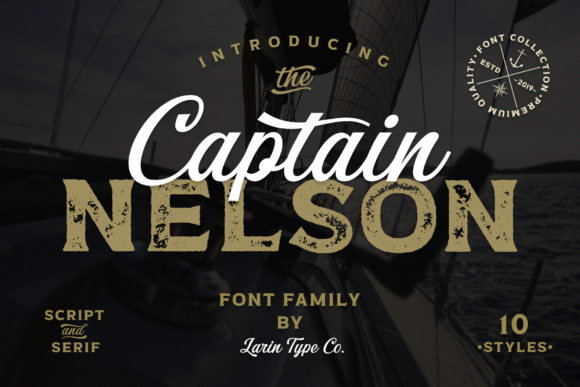
Introducing Captain Nelson Font: The Ultimate Duo for Stunning Design Results
In the world of typography, finding the perfect font combination can make all the difference in creating visually appealing designs. Captain Nelson Font is a game-changing duo that brings together two incredible fonts, designed to perfectly complement each other and elevate your design ideas to new heights. In this article, we’ll dive into the world of Captain Nelson Font, exploring its unique features, and how it can transform your design projects.
The Power of Font Combinations
When it comes to designing a project, selecting the right font can be a daunting task. With countless options available, it’s easy to get lost in the sea of typography. However, a well-chosen font combination can make your design stand out, convey the right message, and leave a lasting impression on your audience. A great font duo can add depth, balance, and visual interest to your design, making it more engaging and effective.
Meet Captain Nelson Font
Captain Nelson Font is a thoughtfully crafted duo that consists of two distinct fonts: a script font and a serif font. This dynamic combination is designed to provide the perfect balance of charisma, charm, and confidence, making it an ideal choice for a wide range of design projects. Whether you’re working on a branding project, creating a website, or designing marketing materials, Captain Nelson Font has got you covered.
The Script Font: Charisma and Charm
The script font in the Captain Nelson duo is a beautiful, elegant, and highly legible typeface. Its flowing curves and dynamic strokes add a touch of sophistication and charm to any design. This font is perfect for adding a personal touch to your project, making it ideal for use in:
- Logotypes and branding
- Headings and titles
- Invitations and event materials
- Packaging and labels
The Serif Font: Confidence and Authority
The serif font in the Captain Nelson duo is a sturdy, dependable, and highly readable typeface. Its classic design and confident strokes add a layer of authority and trustworthiness to your design. This font is perfect for adding a sense of professionalism and stability to your project, making it ideal for use in:
- Body text and paragraphs
- Articles and blog posts
- Reports and documents
- Footers and sidebars
Why Choose Captain Nelson Font?
So, what sets Captain Nelson Font apart from other font combinations? Here are just a few reasons why this duo is a cut above the rest:
- Perfectly paired: The script and serif fonts in the Captain Nelson duo are carefully crafted to work together in harmony, creating a beautiful and balanced visual identity.
- Versatile: This font duo is suitable for a wide range of design projects, from elegant and sophisticated to bold and playful.
- Highly legible: Both fonts in the Captain Nelson duo are designed to be highly readable, ensuring that your message is conveyed clearly and effectively.
- Unique: The Captain Nelson Font combination is a unique and refreshing take on traditional font pairings, allowing you to stand out from the crowd.
Tips for Using Captain Nelson Font
To get the most out of Captain Nelson Font, here are a few tips to keep in mind:
- Use the script font for headings: The script font is perfect for adding a touch of elegance and sophistication to your headings and titles.
- Use the serif font for body text: The serif font is ideal for body text, providing a clear and readable format for your content.
- Experiment with font sizes: Don’t be afraid to experiment with different font sizes to create visual interest and hierarchy in your design.
- Play with color: Use color to add contrast and visual appeal to your design, highlighting key elements and drawing attention to important information.
In conclusion, Captain Nelson Font is a game-changing duo that offers a unique and refreshing take on traditional font pairings. With its perfectly paired script and serif fonts, this combination is sure to elevate your design projects to new heights. Whether you’re a seasoned designer or just starting out, Captain Nelson Font is an excellent choice for anyone looking to add a touch of elegance, sophistication, and confidence to their designs.
Final Thoughts
In the world of typography, finding the perfect font combination can make all the difference in creating visually appealing designs. With Captain Nelson Font, you can rest assured that your design will stand out from the crowd, convey the right message, and leave a lasting impression on your audience. So why wait? Try Captain Nelson Font today and experience the power of perfectly paired typography for yourself.